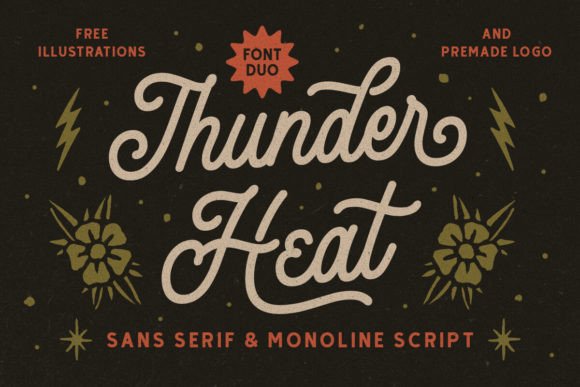
Introducing Thunder Heat Duo Font - the ultimate choice for all your font needs! With its classic and timeless appeal, this monoline font duo is guaranteed to captivate and inspire. Whether you're designing window signage or crafting a stunning logo, Thunder Heat is the perfect companion that will take your creations to the next level.
Created by the talented team at letterhend, Thunder Heat is the epitome of elegance and sophistication. Its script and sans serif versions provide endless possibilities for customization, allowing you to effortlessly adapt the font to suit any project. This versatility ensures that Thunder Heat remains a valuable asset in your fonts' library, ready to be utilized whenever inspiration strikes.
Immerse yourself in the enchanting world of Thunder Heat and experience the power it holds. Let its graceful curves and precise strokes breathe life into your designs, evoking emotions and leaving a lasting impression on your audience. From bold headlines to delicate invitations, this font duo effortlessly adapts to any style, adding a touch of class and uniqueness.
Unlock your creativity with Thunder Heat and transform your designs into masterpieces that stand out from the crowd. Its impeccable craftsmanship and attention to detail make it the go-to choice for professionals and beginners alike. Embrace the captivating aura it exudes and watch as your projects come to life with a touch of magic.
But Thunder Heat is more than just a font; it's a journey. It takes you on an adventure through creativity, enabling you to express your ideas with confidence and flair. Its seamless integration with popular design software ensures a smooth workflow, allowing you to focus on what truly matters - creating exceptional designs that leave a lasting impact.